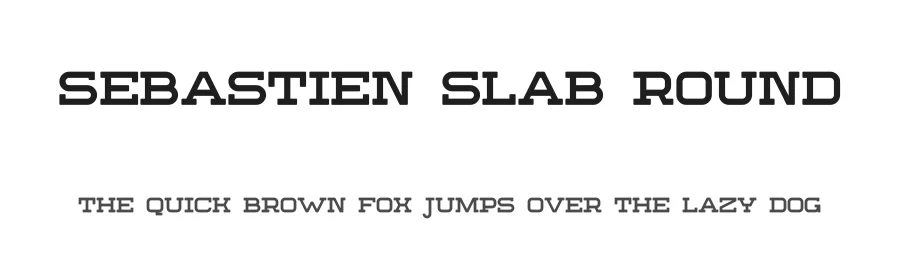
About Sebastien Slab Font
Sebastien Slab is an uppercase light slab serif. For the initial release we've built an impressive letter set of 534 glyphs including European special characters, accented letters, and punctuation.
Sebastien Slab Font is a versatile serif font that works for both headings and body text. Pair it with a contrasting sans-serif or slab serif font to add visual interest and a clear distinction between titles and body copy.